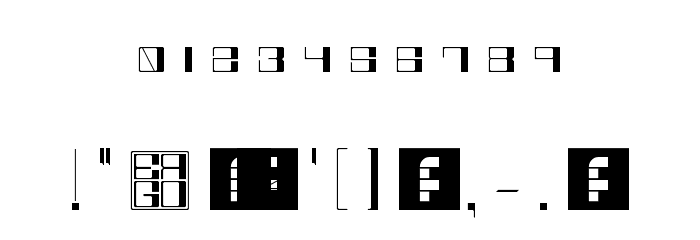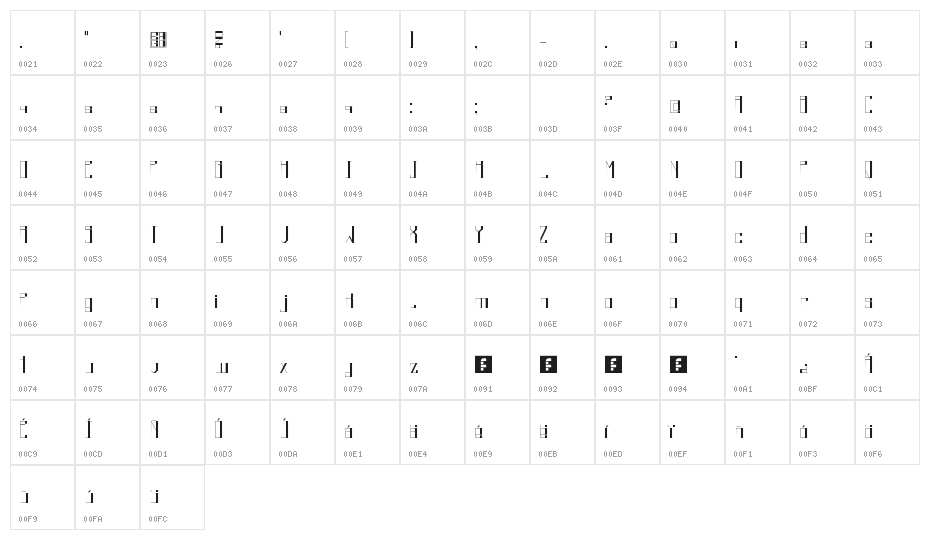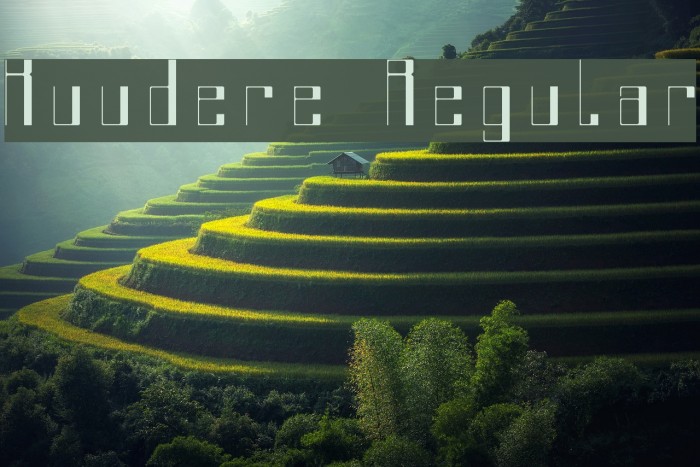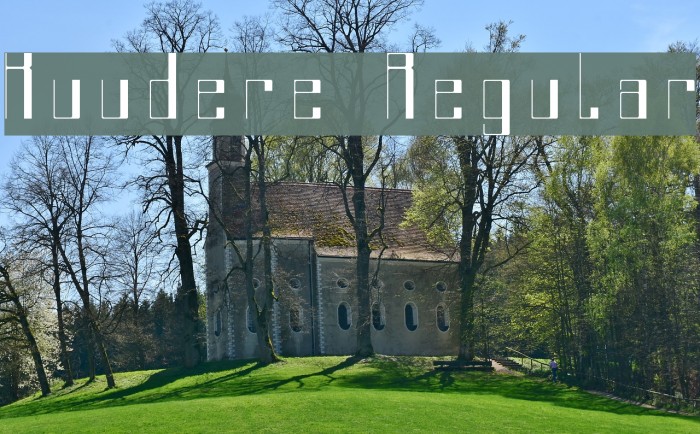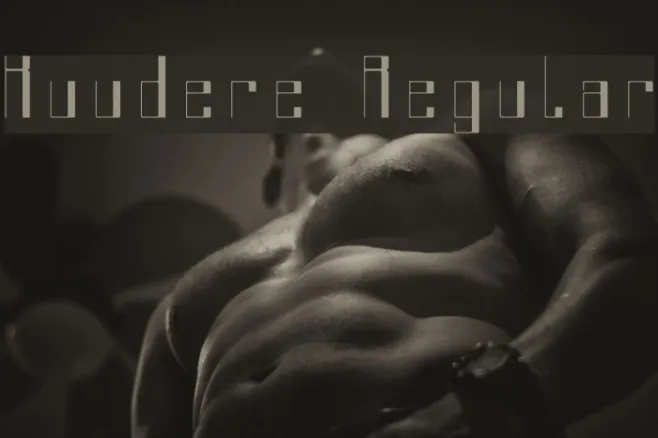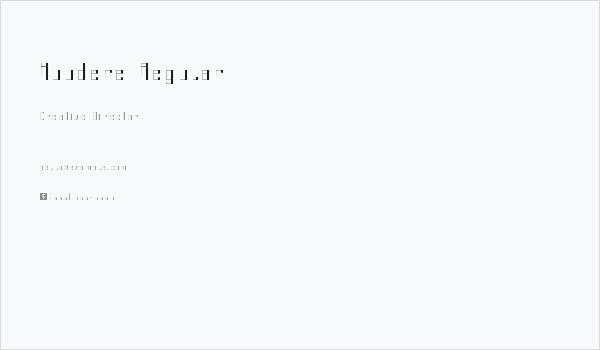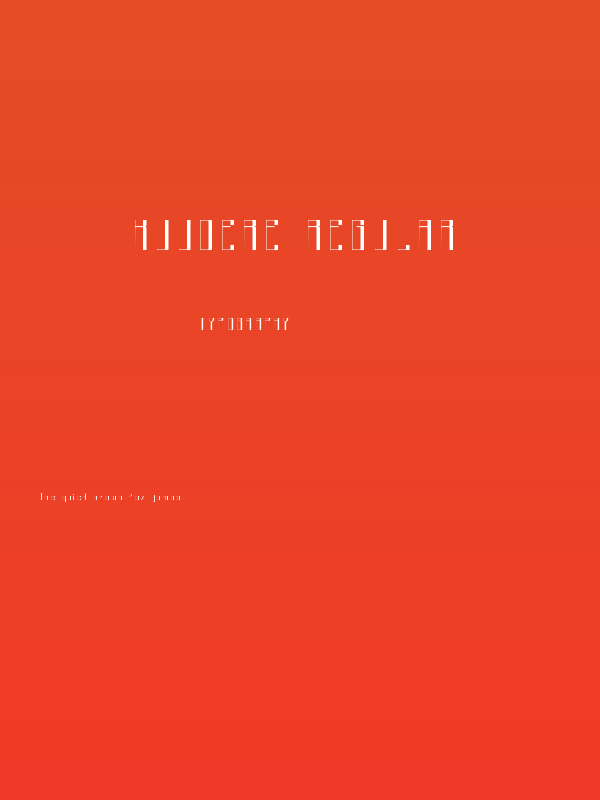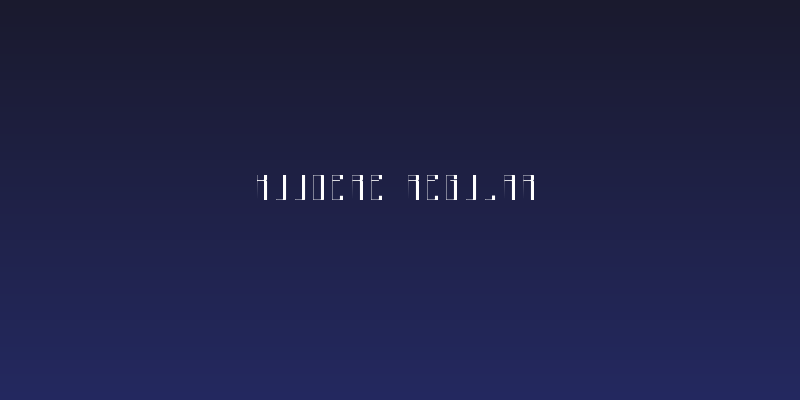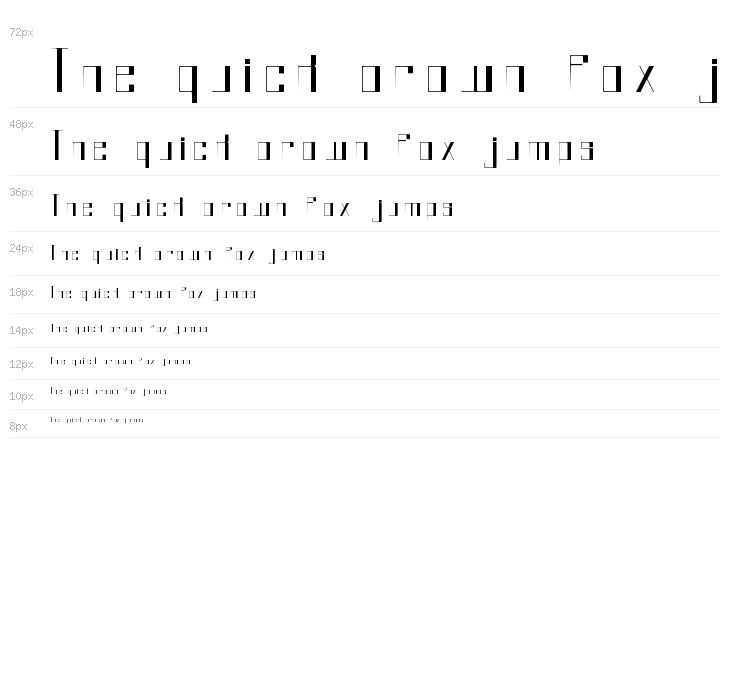
Kuudere Regular Font
Kuudere Regular Description
This font presents a unique blend of geometric and modern styles, characterized by its distinct blocky and angular shapes. The uppercase letters are tall and narrow, with sharp edges and minimal curves, giving them a futuristic and digital appearance. The lowercase letters maintain a similar aesthetic, though they are slightly more rounded, providing a subtle contrast to the uppercase. The numerals and special characters follow the same design principles, ensuring consistency across the font. The overall look is clean and structured, making it suitable for projects that require a modern and tech-savvy feel.
| Proposed Projects | Ideal for tech-related branding, digital interfaces, video game design, and modern advertising campaigns. |